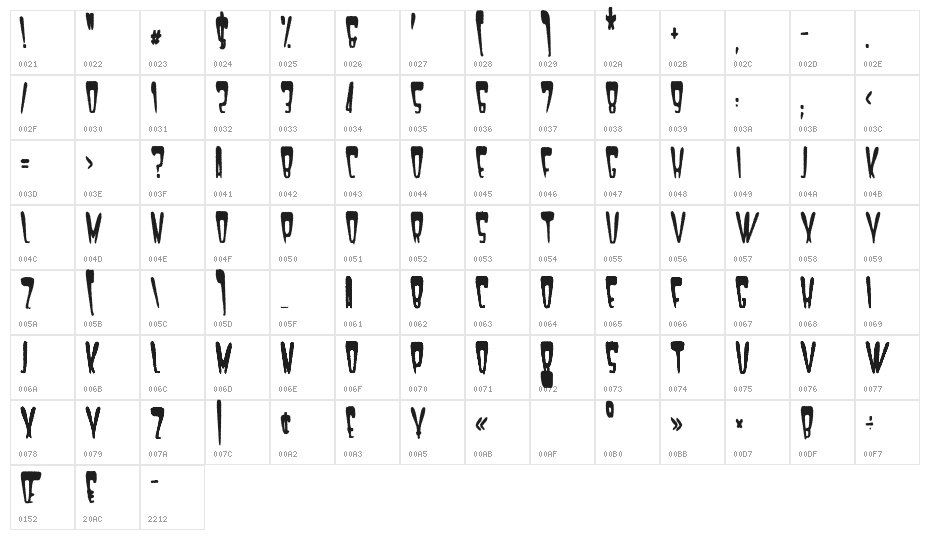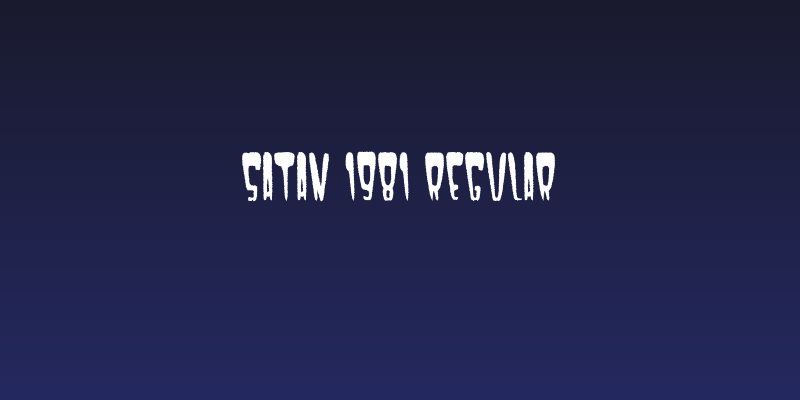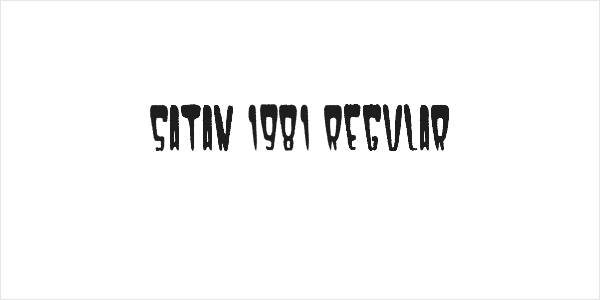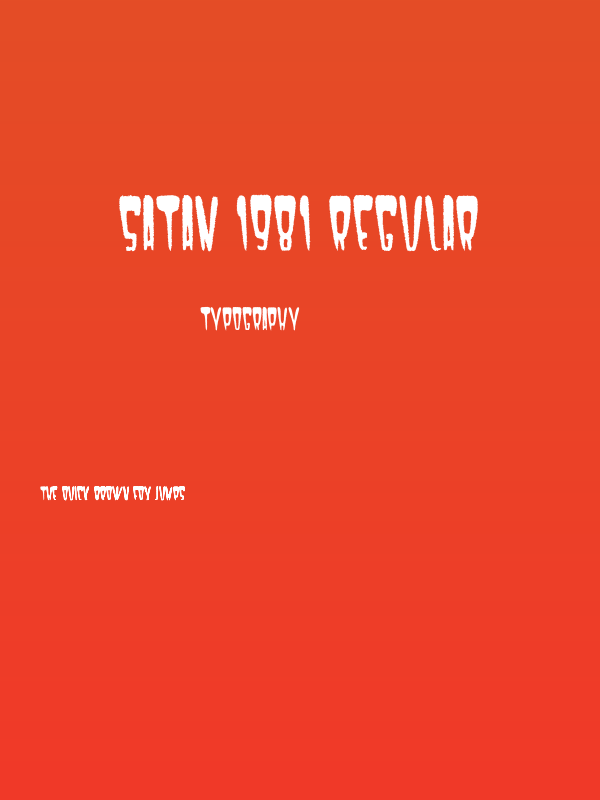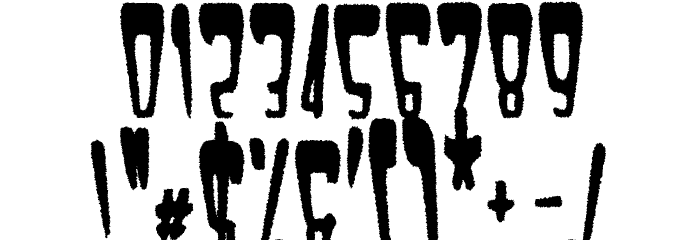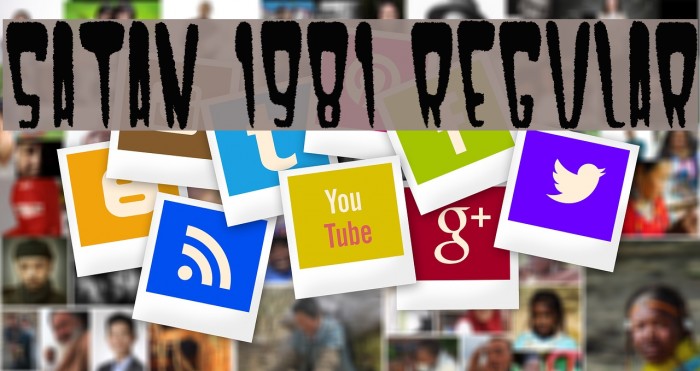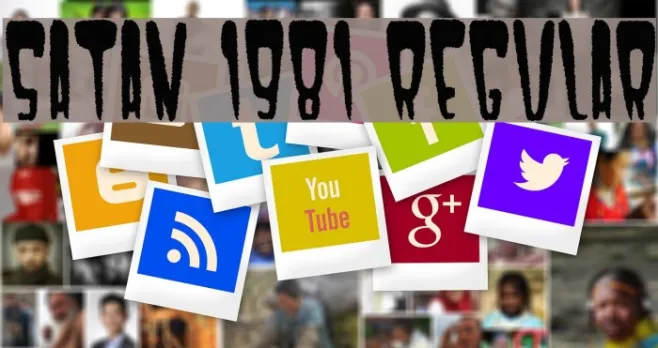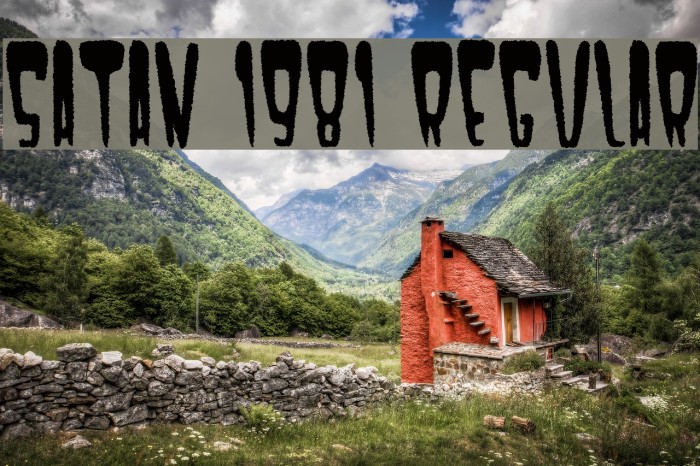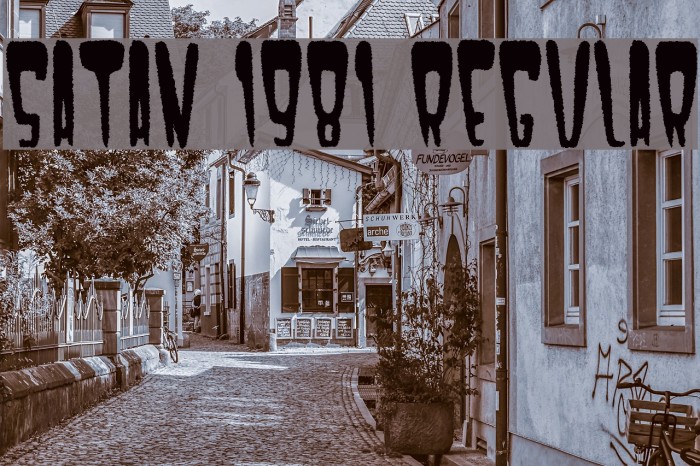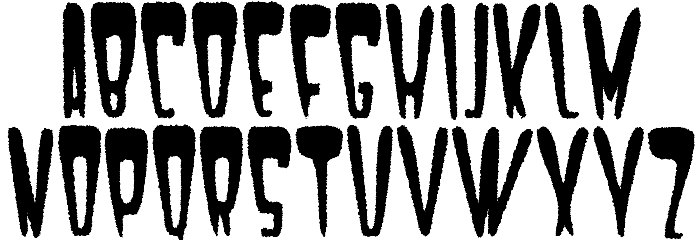
Satan 1981 Regular Font
Satan 1981 Regular Description
This font features a bold, dramatic style with sharp, angular edges and a slightly distressed appearance. The characters are tall and narrow, giving them a striking presence. The uppercase and lowercase letters maintain a consistent design, with unique, jagged serifs that add to the font's edgy aesthetic. The numbers and special characters follow the same design principles, ensuring a cohesive look across all elements. This font's distinctive style makes it ideal for projects that require a bold, attention-grabbing typeface.
| Proposed Projects | Perfect for horror-themed posters, album covers, or any design needing a dramatic, eye-catching font. |